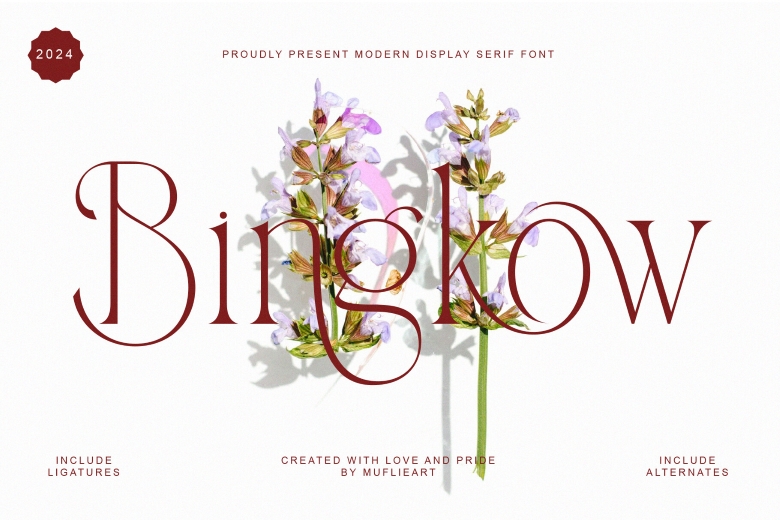
Bingkow Font
Introducing Bingkow: As a clean and modern sans-serif fonts with influences from both the modern and minimalist design, Bingkow lends a touch of luxury to your projects, including websites, modern logo and branding identity for social media quotes, contemporary weddings media invites, parties and more!
This style of capital letters A to Z gives Bingkow a beautiful look and elegance and also it is accompanied by ligatures and alternate letters thus making it ideal for large scale project.
Bingkow Serif Font